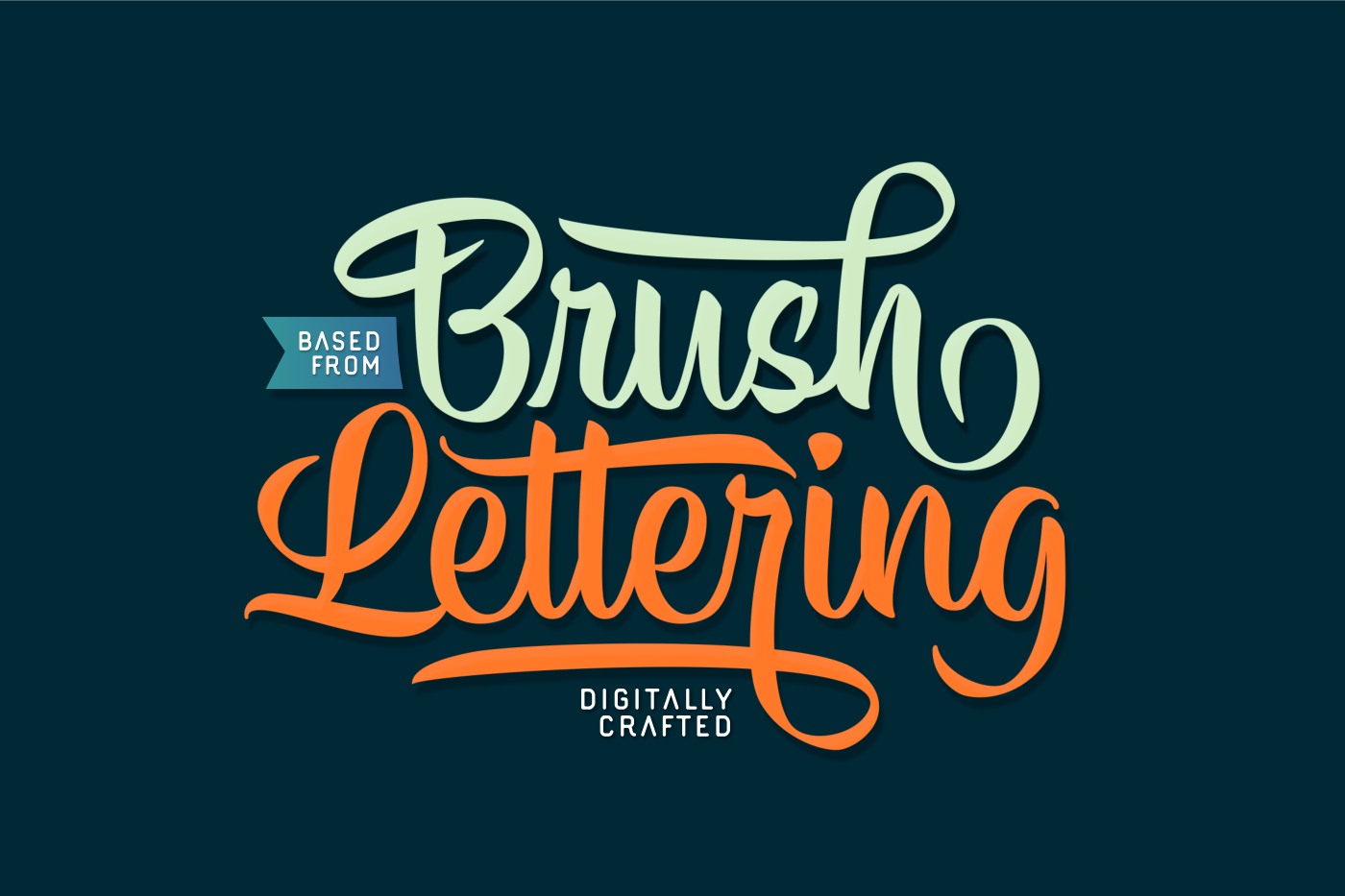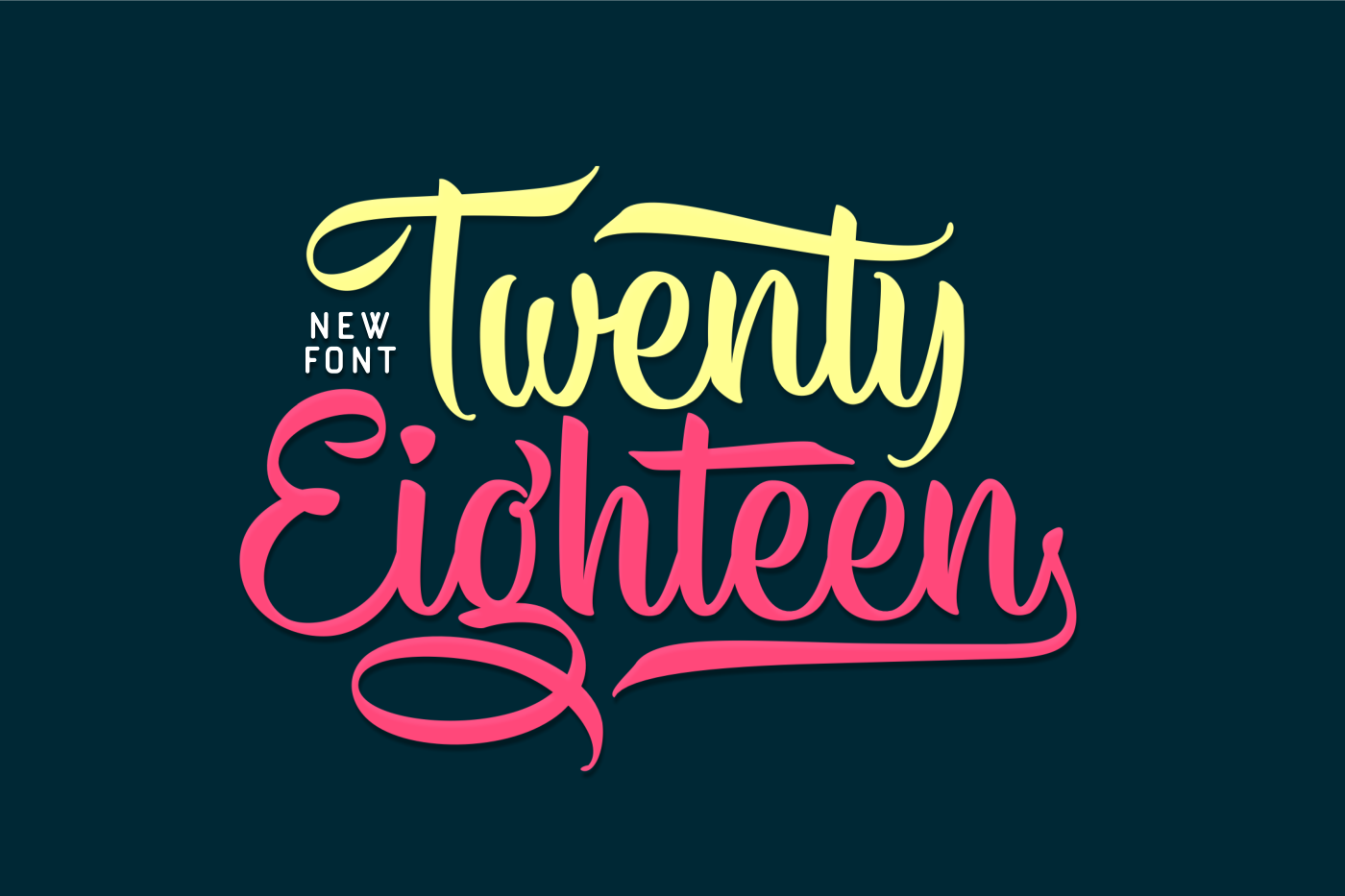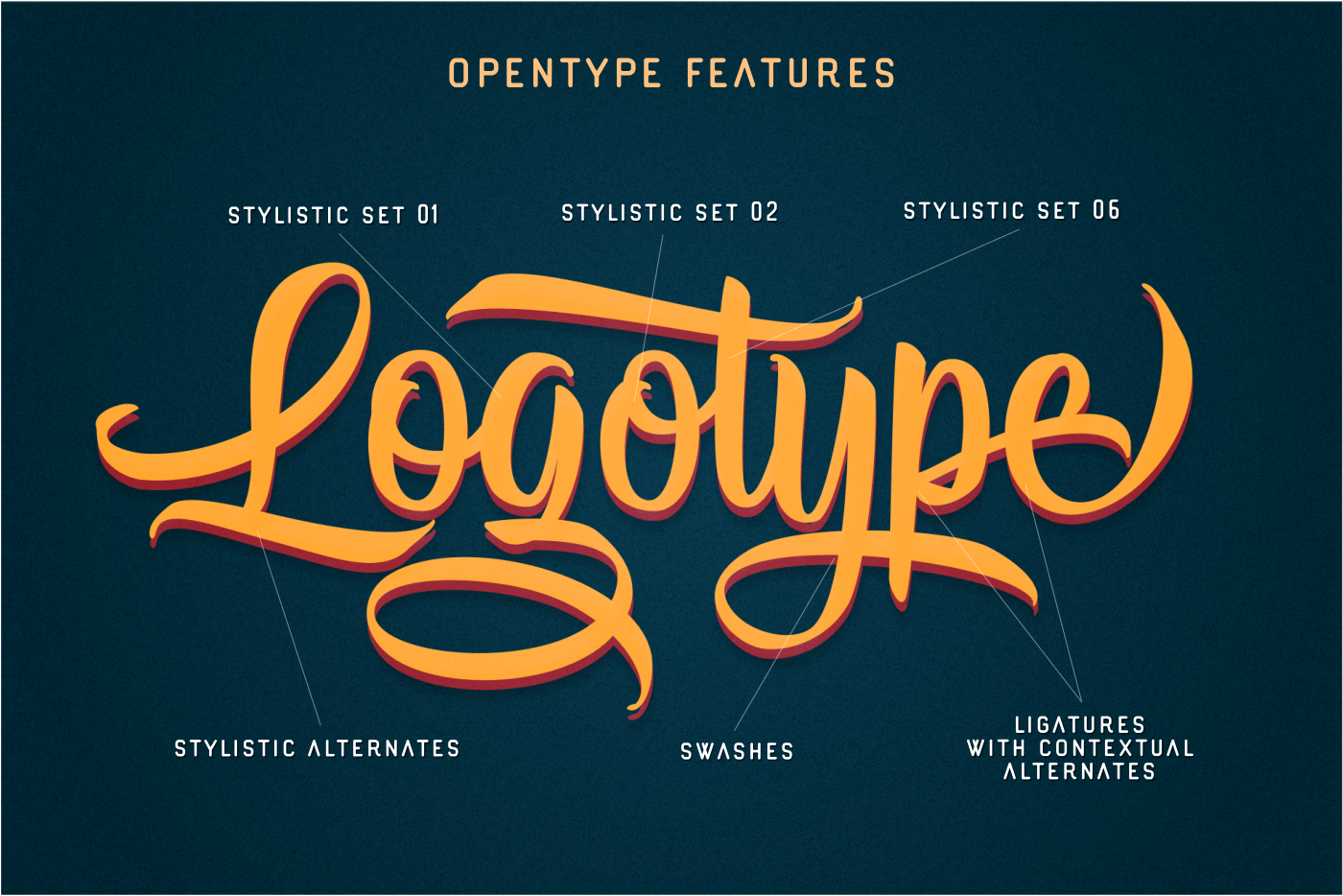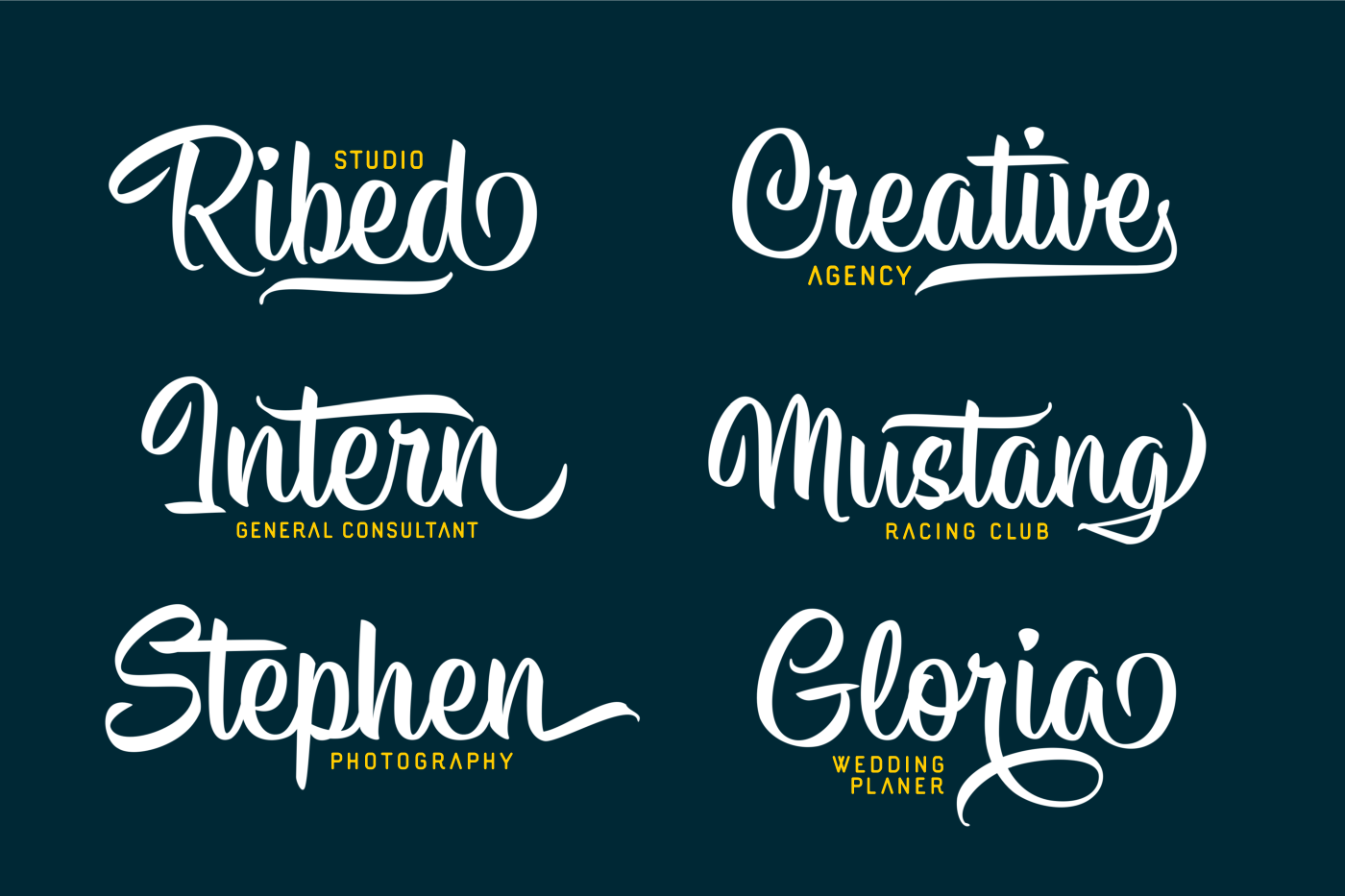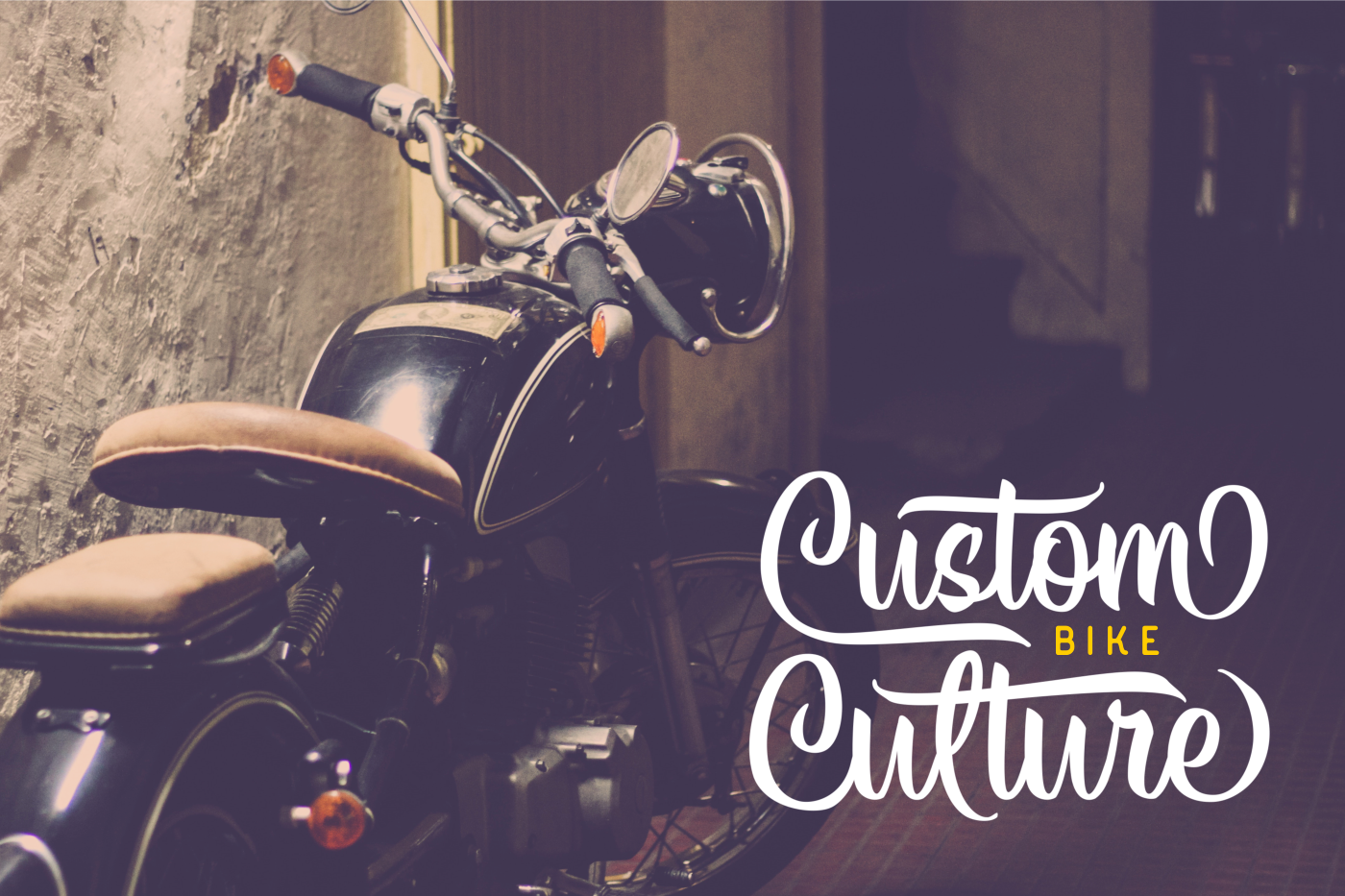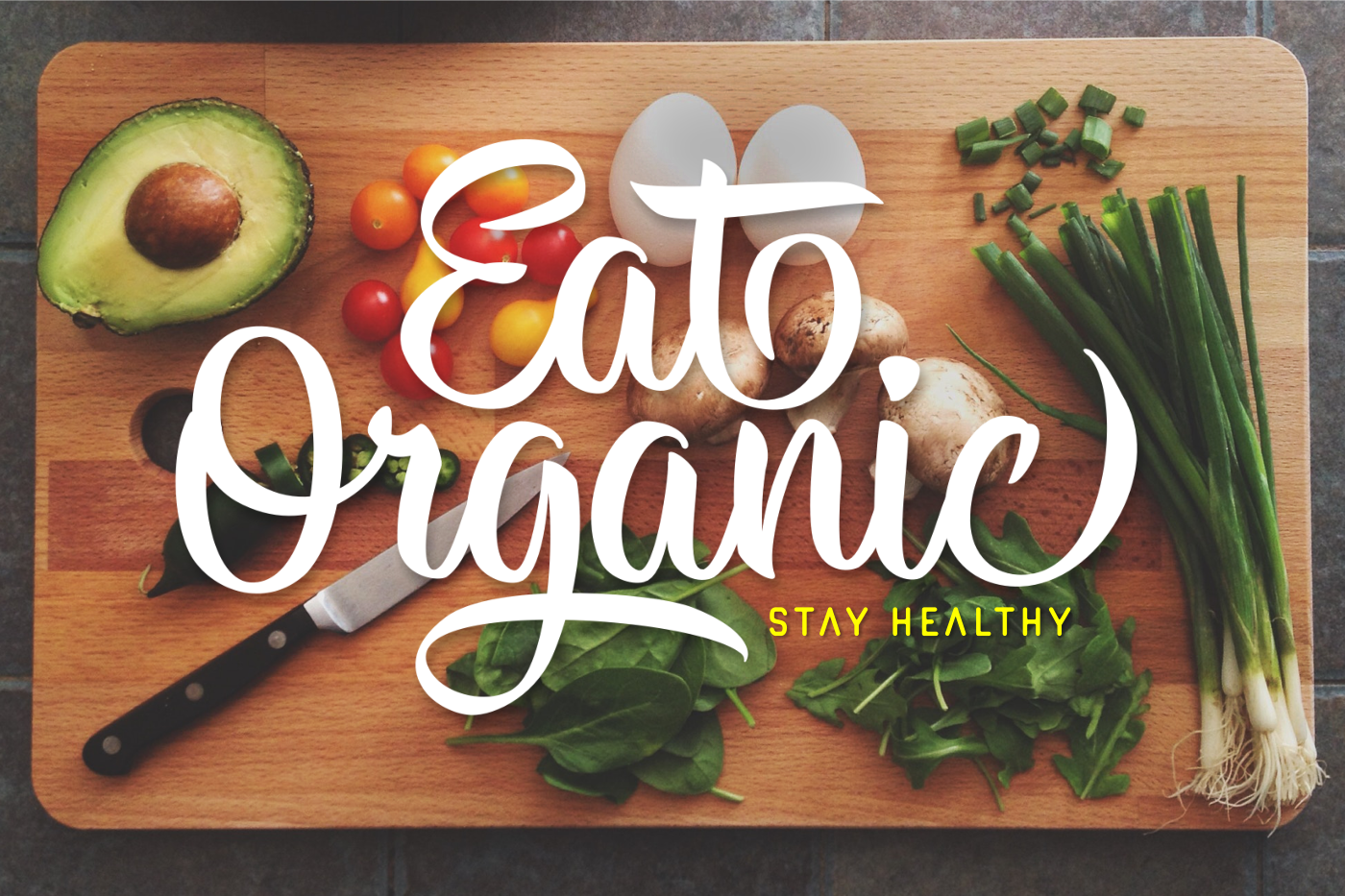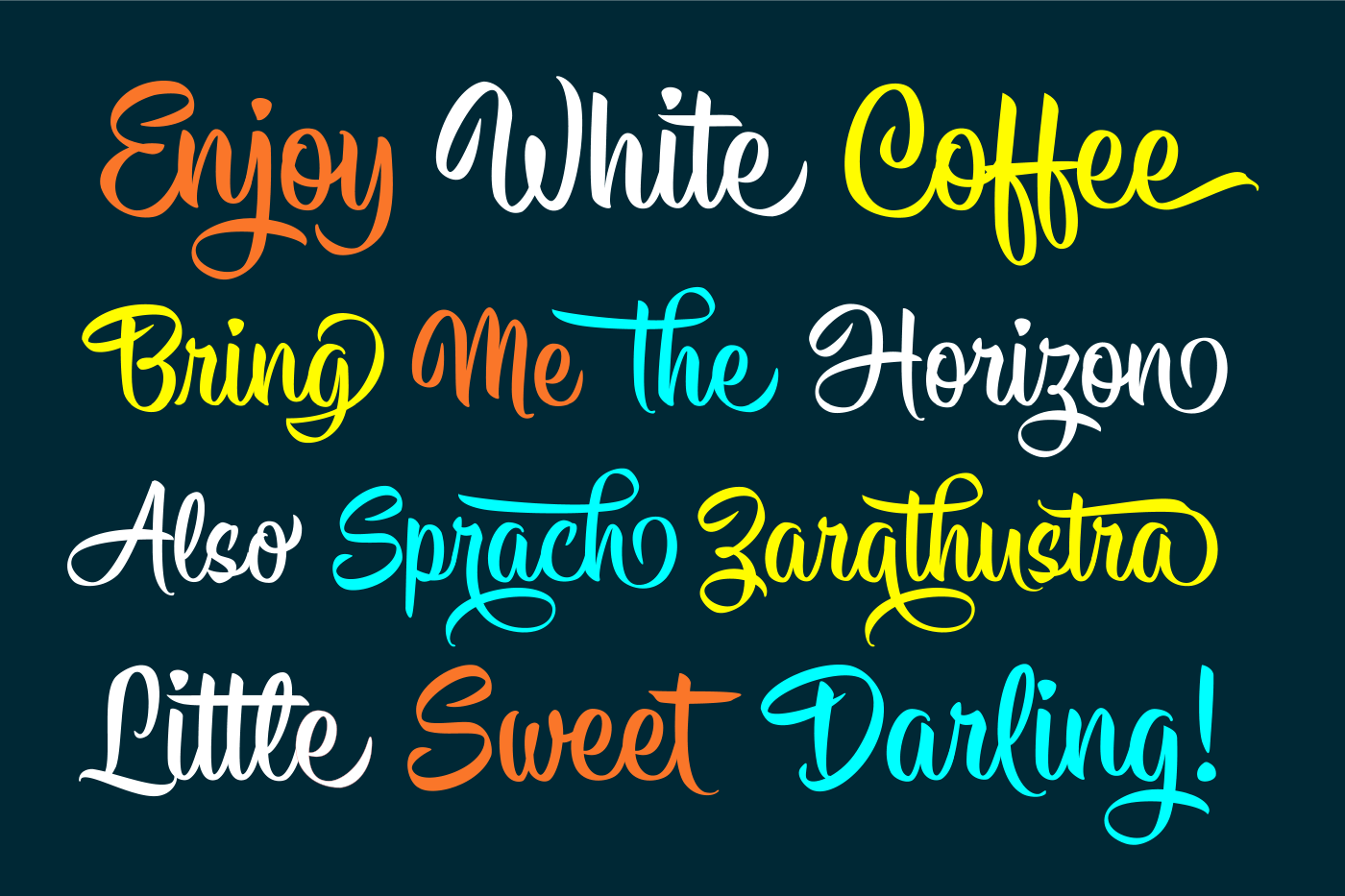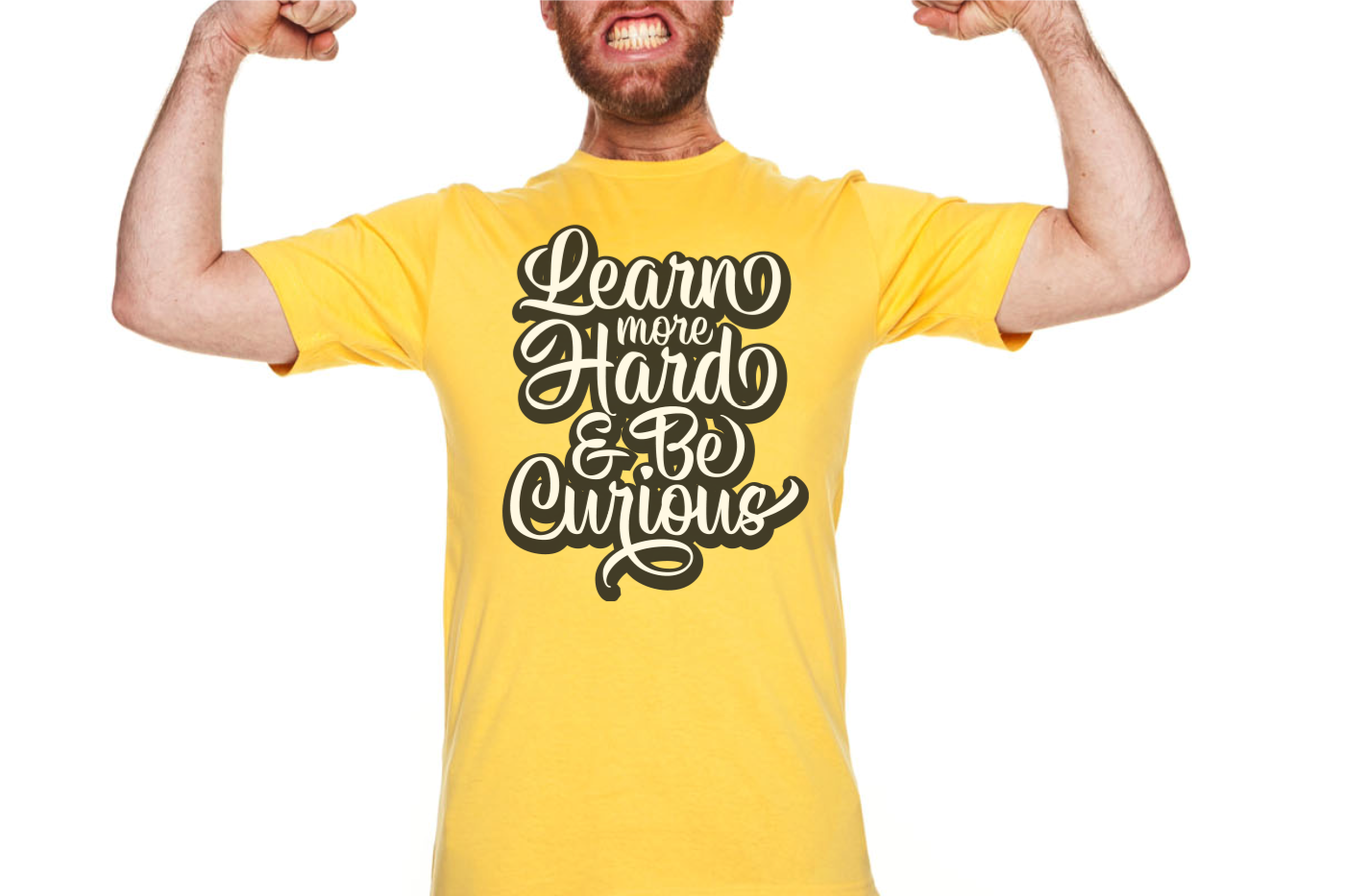
Hisyam Font
About Hisyam Font
Hisyam is a beautiful brushpen calligraphy font, with a bold weight and variable style options. Hisyam Script is condensed and made in upright style, and crafted for logotype and header creations.